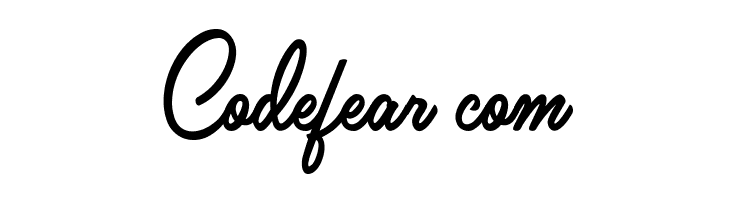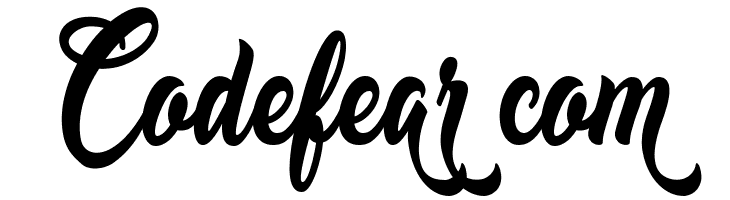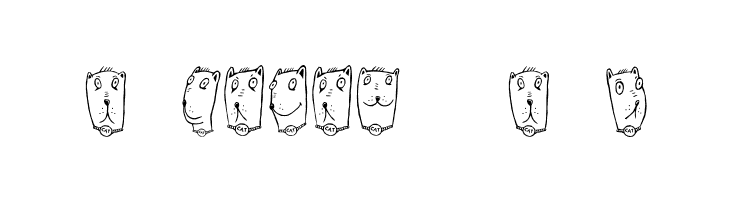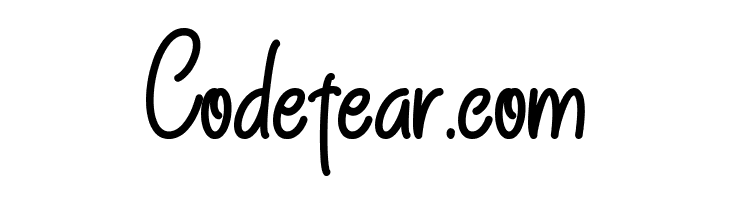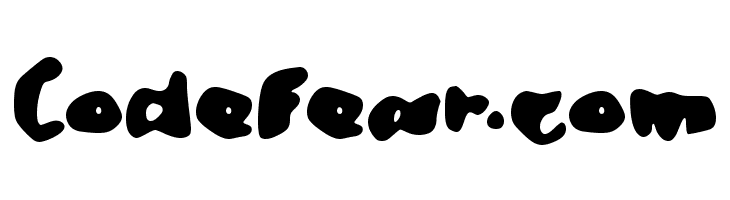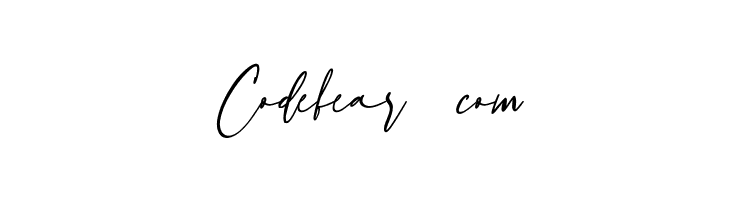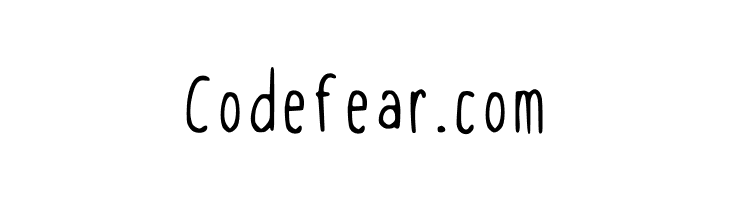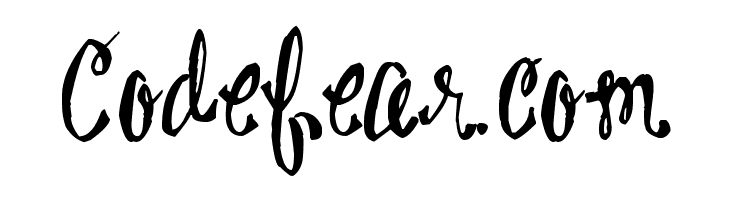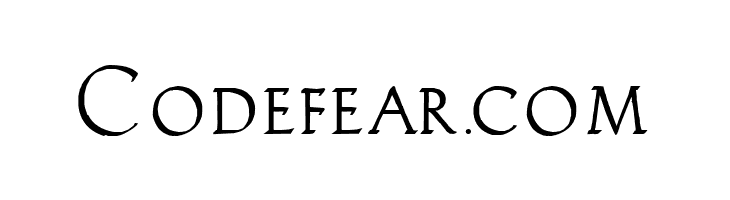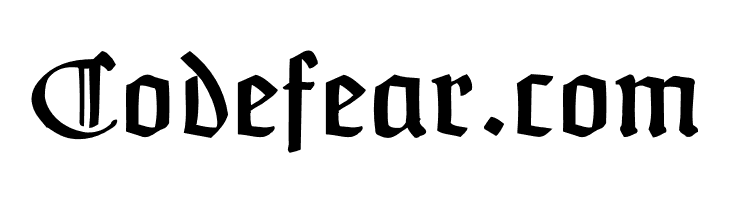
A playful, bold font with rounded, irregular shapes and a whimsical style.
A classic serif font with elegant strokes and medium contrast.
Casual handwritten font with a playful style.
A whimsical, bold handwritten font with a playful and dynamic style.
A cursive, handwritten-style font with elegant, flowing lines.
A decorative cursive font with elegant loops and swashes.
A playful, hand-drawn font featuring unique cat faces for each character.
A dynamic, expressive handwritten font with fluid strokes and a lively character.
A playful, casual handwritten font with smooth curves and a modern touch.
A classic Blackletter font with ornate, angular letterforms and bold styling.